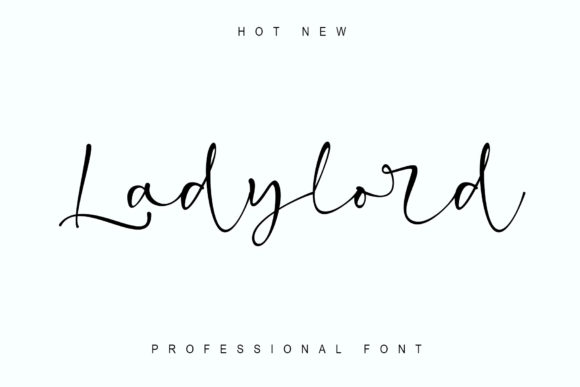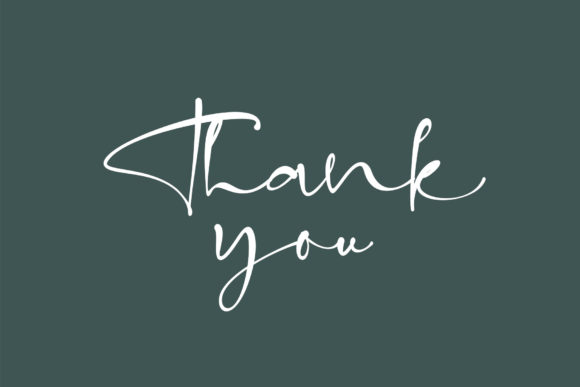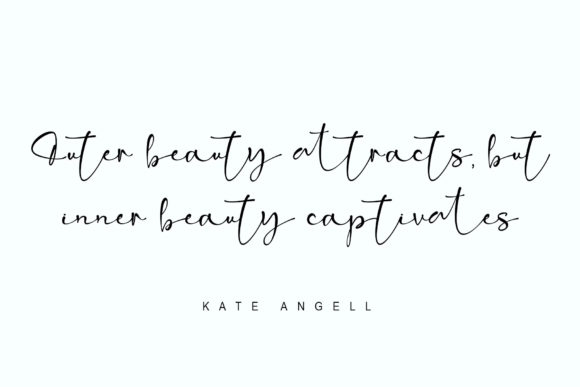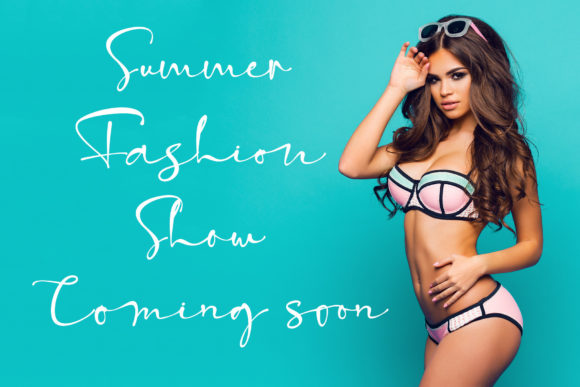
About Ladylord Font
Ladylord is a lovely and delicate script font that exudes elegance and class. This font was particularly crafted for those who need a beautiful and refreshing look to their designs.